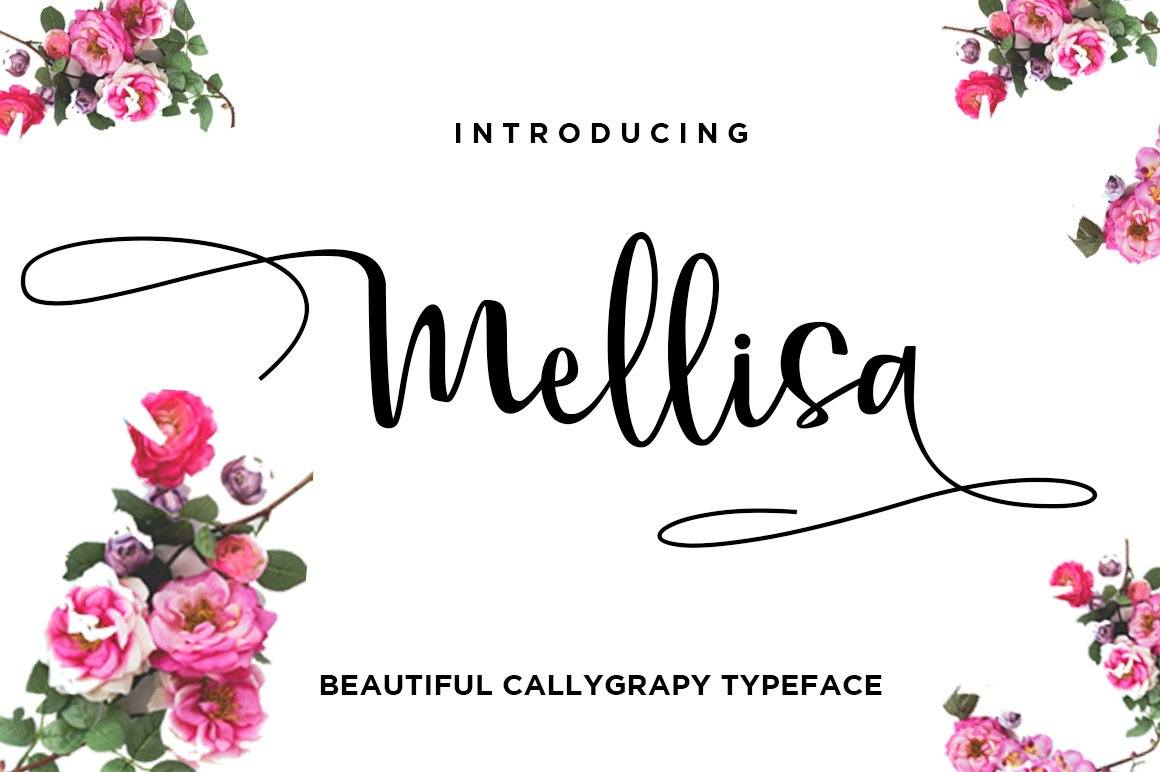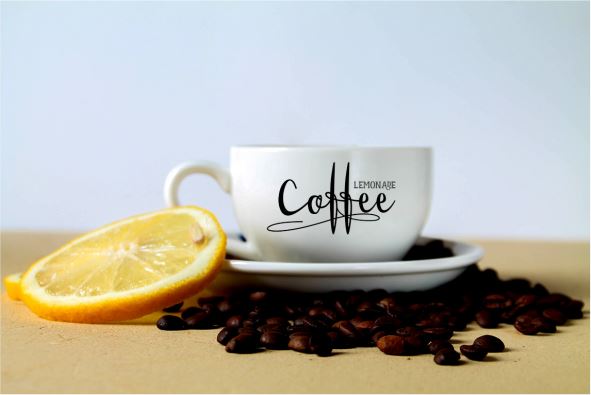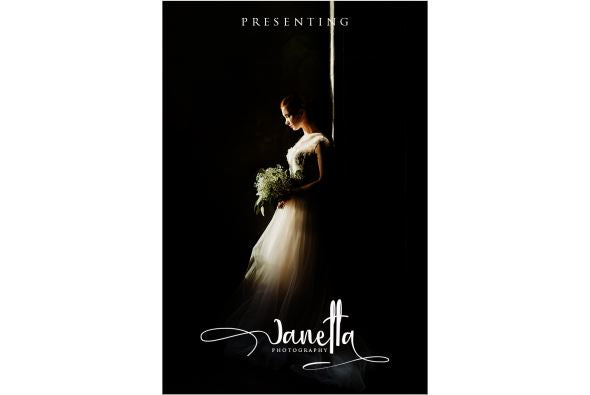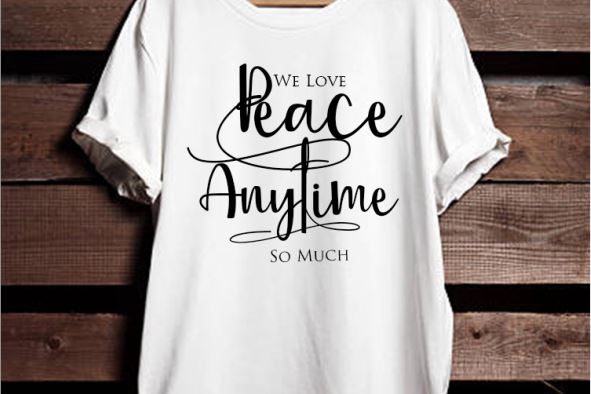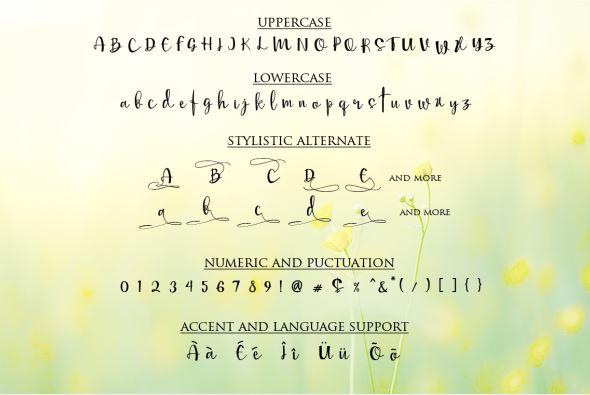
About Mellisa Modern Calligraphy Font
Mellisa is a modern calligraphic font designed with the elegance of every letter. As in the preview you see, this font is very suitable to use on some product brand with natural handwriting display. With the addition of alternative font features make it look more beautiful. What you will get ? – otf ttf and woff files Mellisa is also supported for several languages that you can use for certain characters. Thank you for your visit Success is always for you